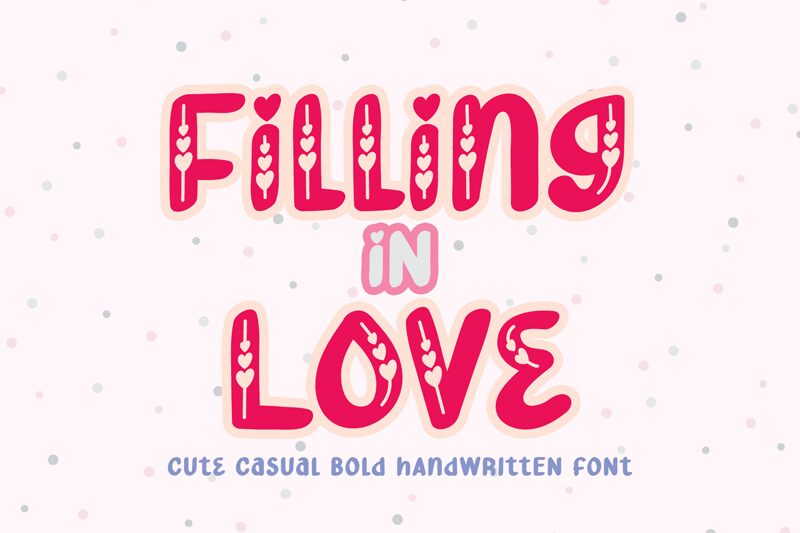
Filling In Love, a charming creation by Airotype Studio, encapsulates the essence of affection with its valentine-inspired design. Its bold weight ensures that each character makes a heartwarming impression, perfect for projects that aim to convey love and warmth. The playful yet impactful style of this holiday font makes it an ideal choice for seasonal branding, romantic event invitations, and personal projects that require a touch of tenderness.
With Filling In Love, you get more than just typeface; you get an emotion-infused script that aptly captures the joyous spirit of love-filled celebrations. Whether you're crafting Valentine's Day cards or looking to infuse your designs with year-round romance, this font's aesthetic appeal lies in its ability to blend creativity with passion seamlessly.